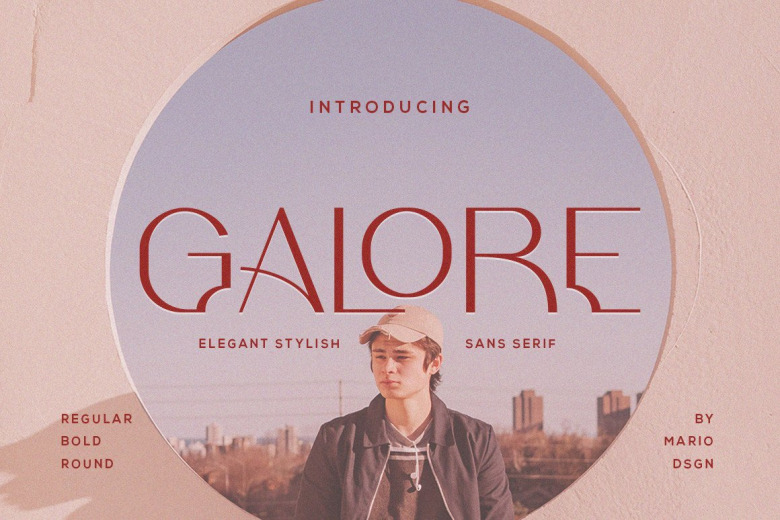
Galore Font
Galore is an elegant, thin lettered and modern sans serif font. This gentle font will look gorgeous on a variety of design ideas. It will add a romantic touch to each of your projects!